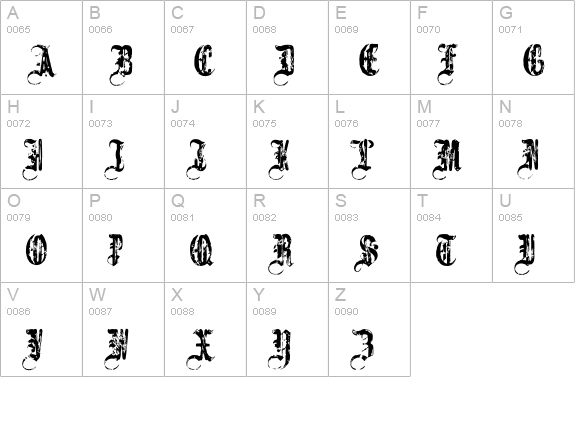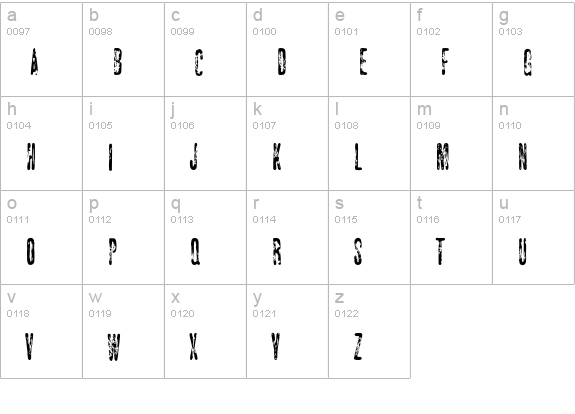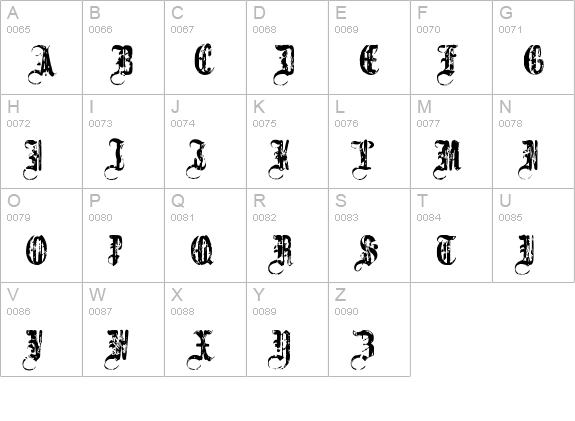
CarpediemEF-InitialsCaps Font Details
CarpediemEF-InitialsCaps font is a unique and stylish typeface that exudes elegance and sophistication. With its intricate initials and charming design, this font is perfect for adding a touch of class to any project. Whether you're creating invitations, posters, or branding materials, CarpediemEF-InitialsCaps font will make your text stand out. The best part? CarpediemEF-InitialsCaps font is completely free to download at FontsMarket.com. So you can enhance your designs without breaking the bank. Don't miss out on this opportunity to elevate your typography game with this stunning and versatile font. Download CarpediemEF-InitialsCaps today and let your creativity shine!